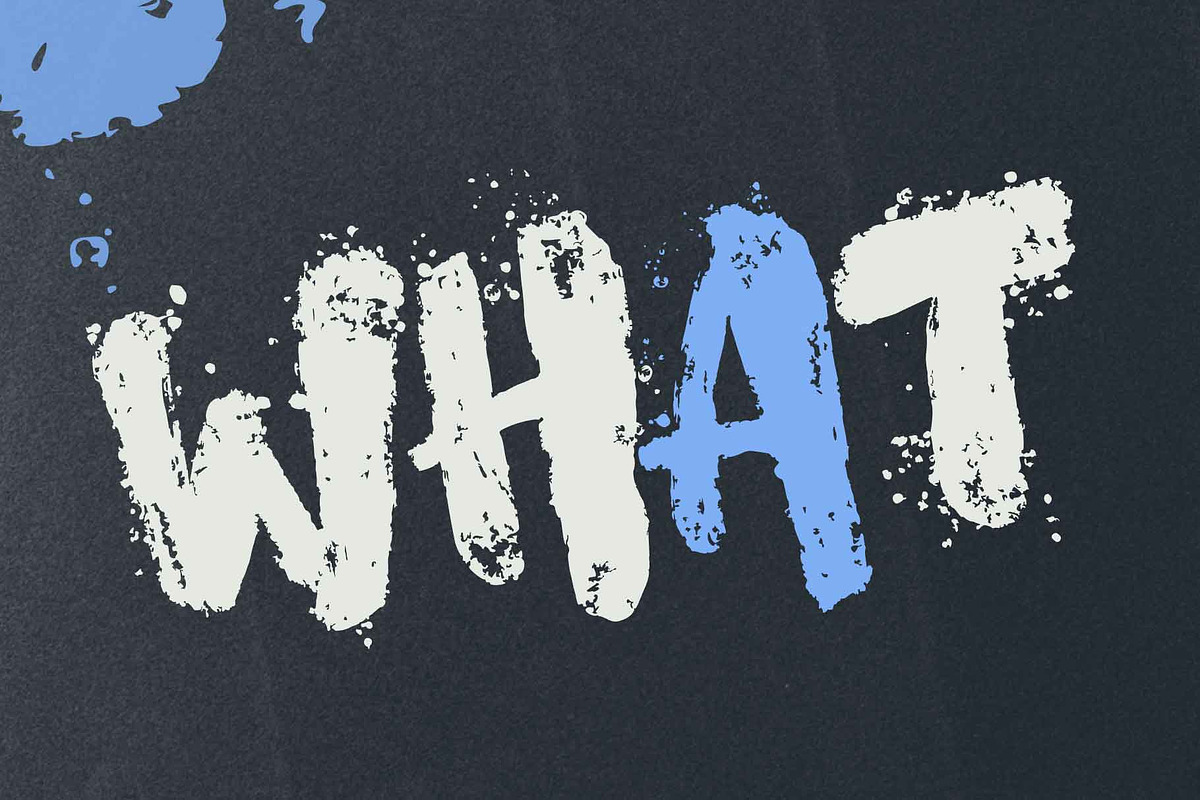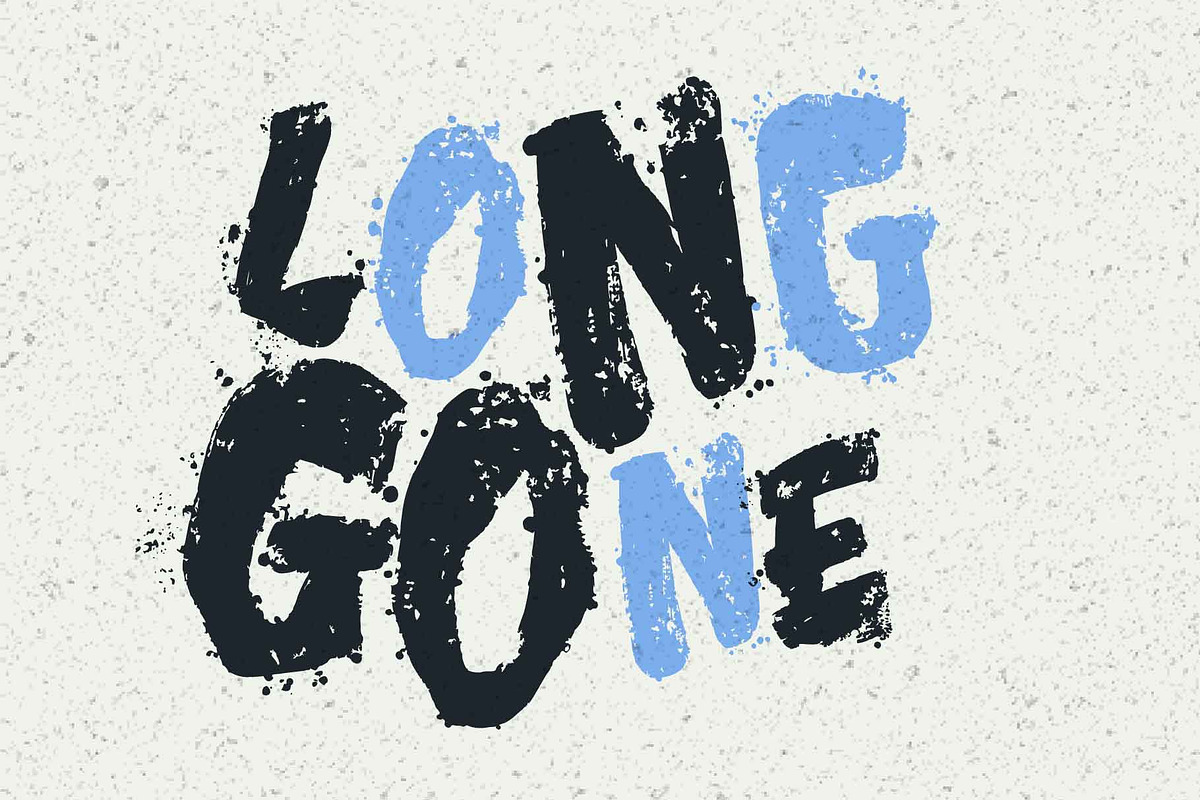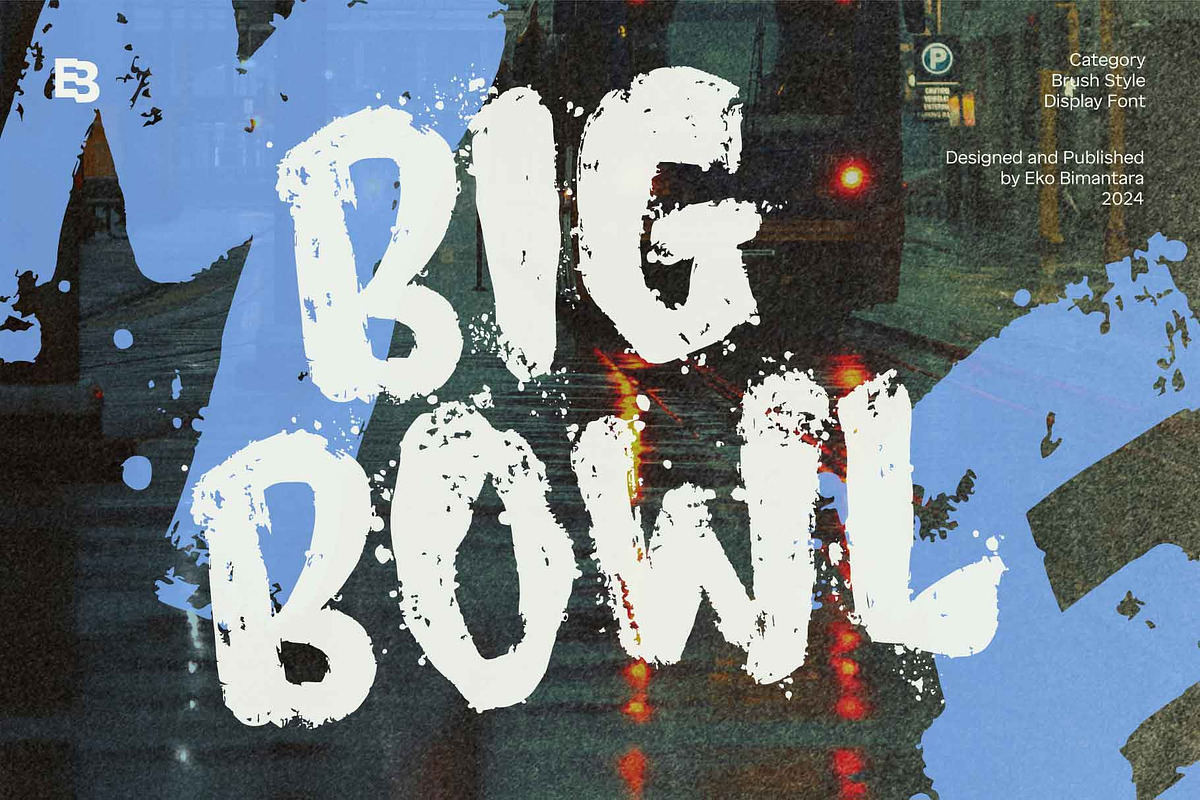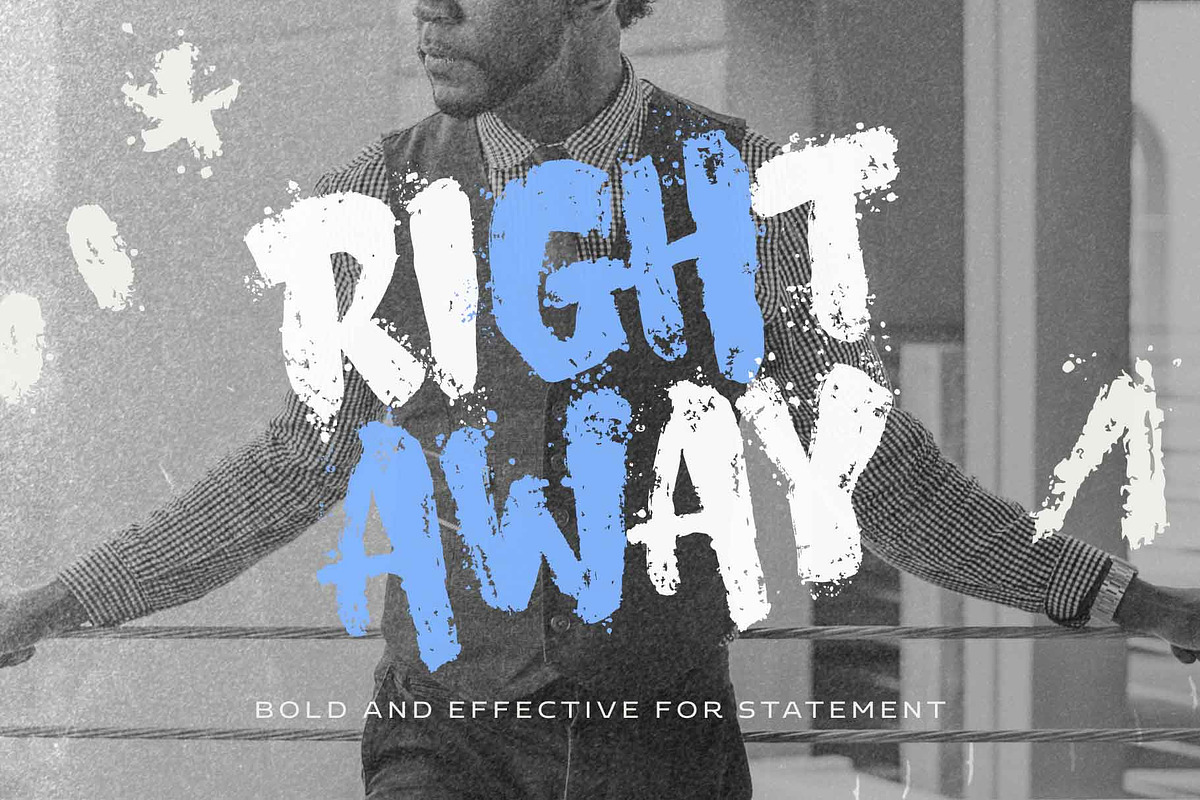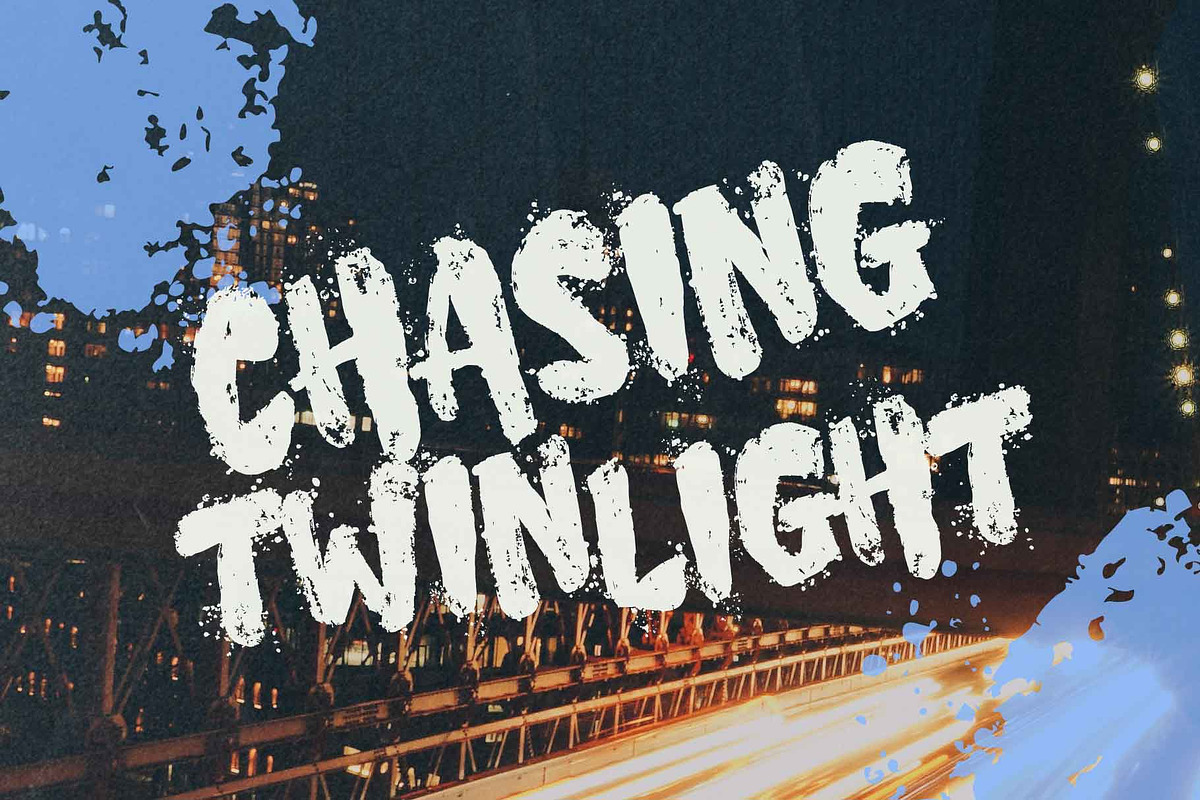
Big Bowl; Brush Display Font
Big Bowl is a bold brush display font characterized by strong, rough, and expressive brush strokes with scatter effects, making it perfect for creating impactful, artistic designs. Ideal for themes with a bold, rough, and expressive aesthetic, it is especially suited for branding, t-shirts, titles, and packaging. Whether for large-scale displays, headers, websites, or brand identity, Big Bowl delivers a striking visual presence and adds a creative, dynamic touch to various design and graphic projects.